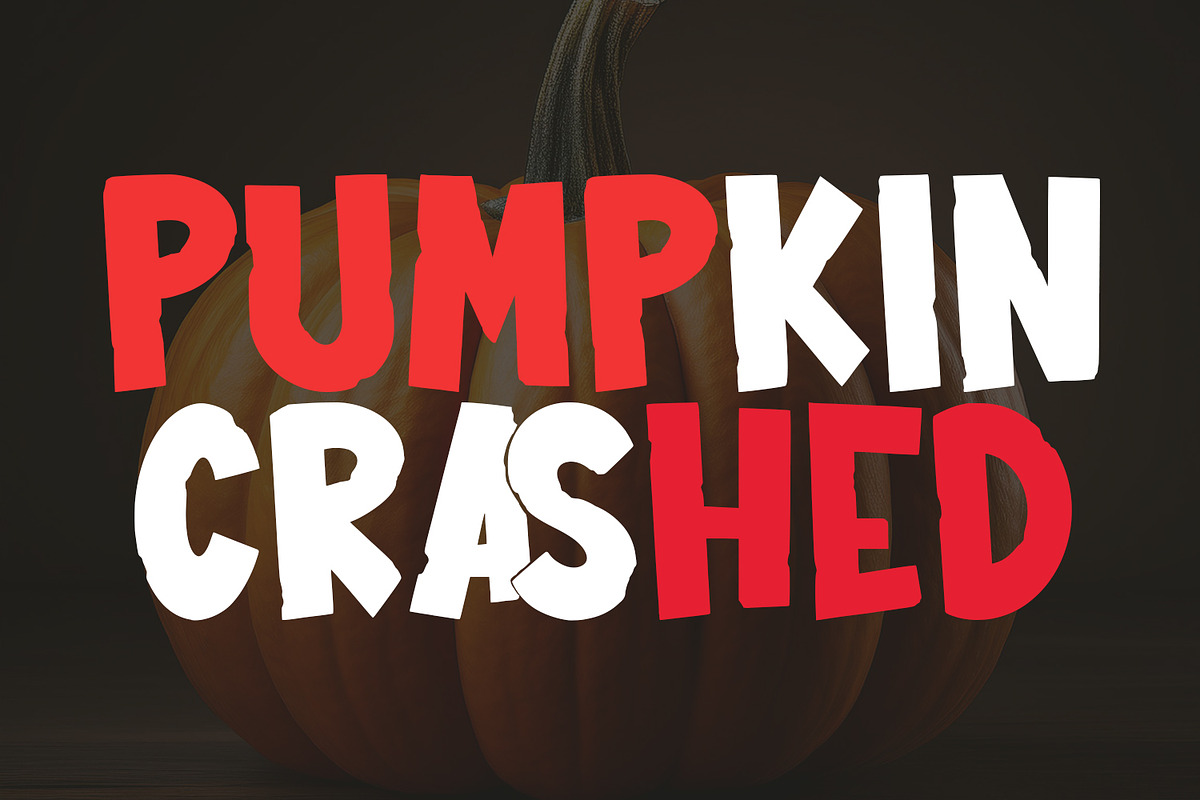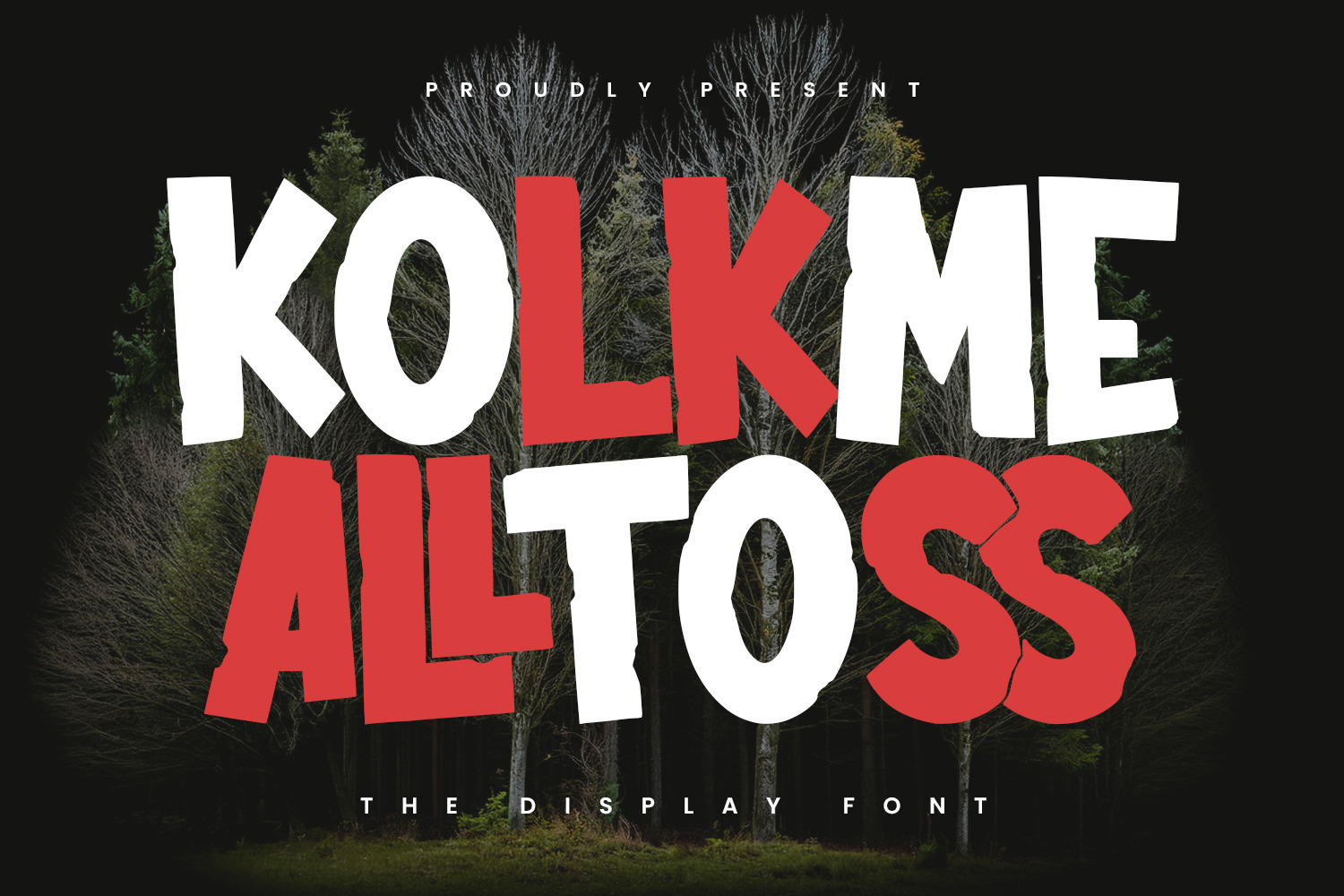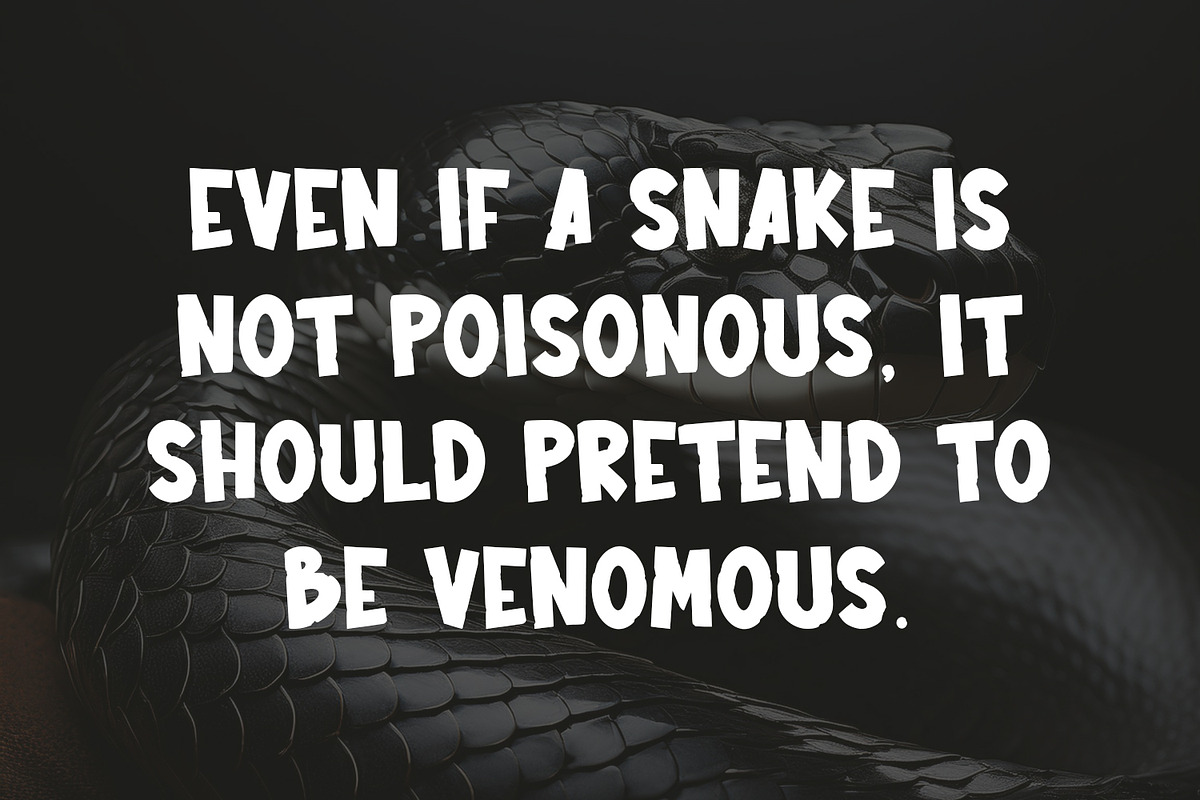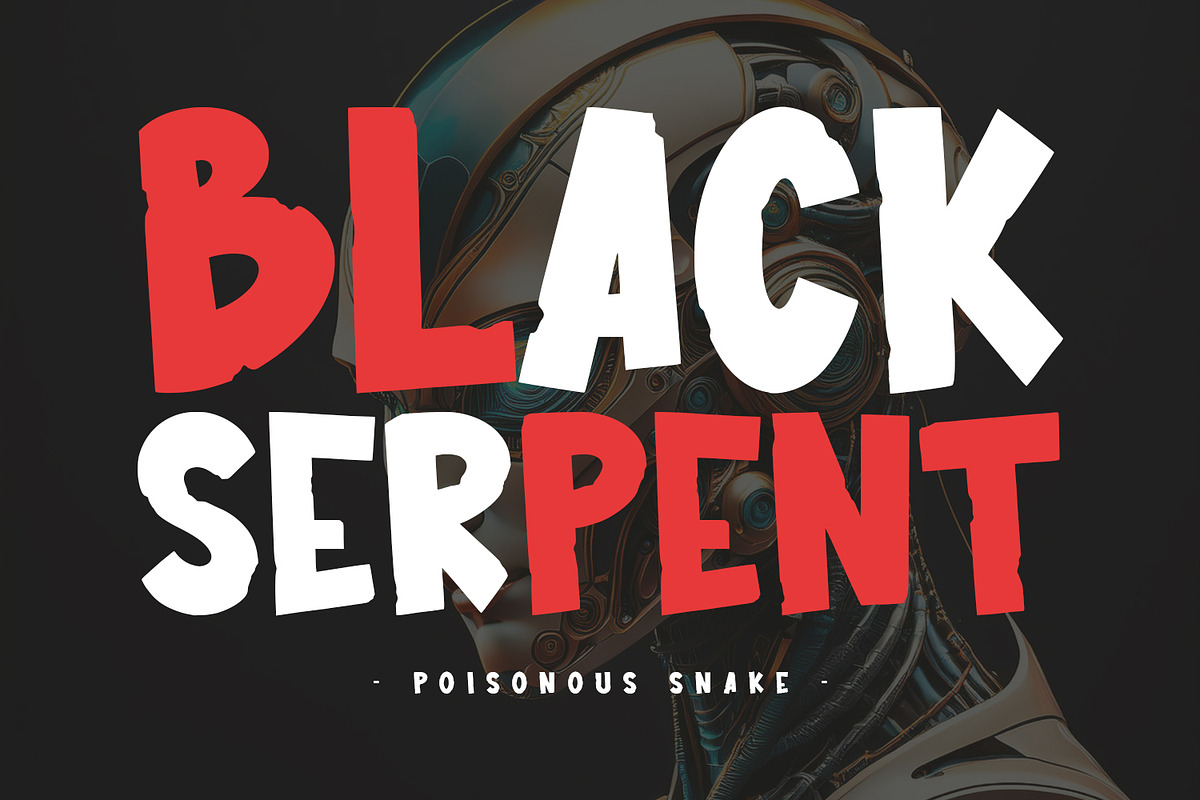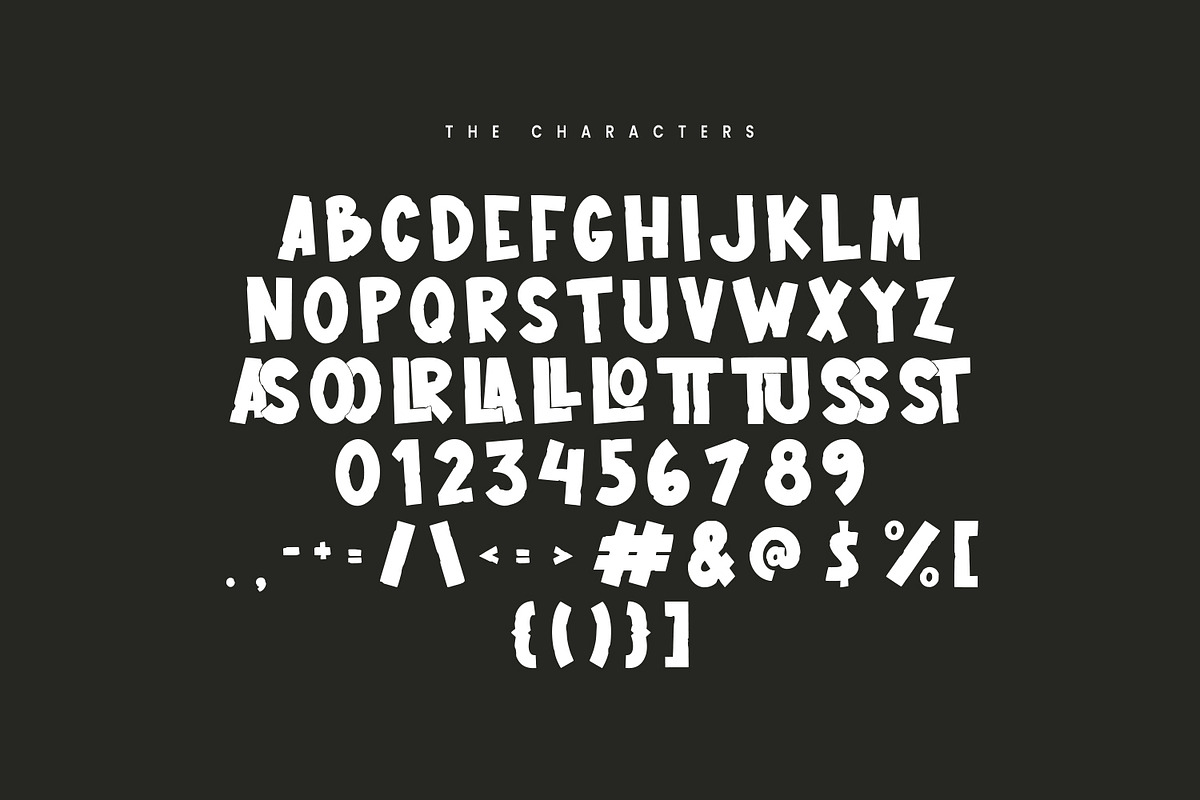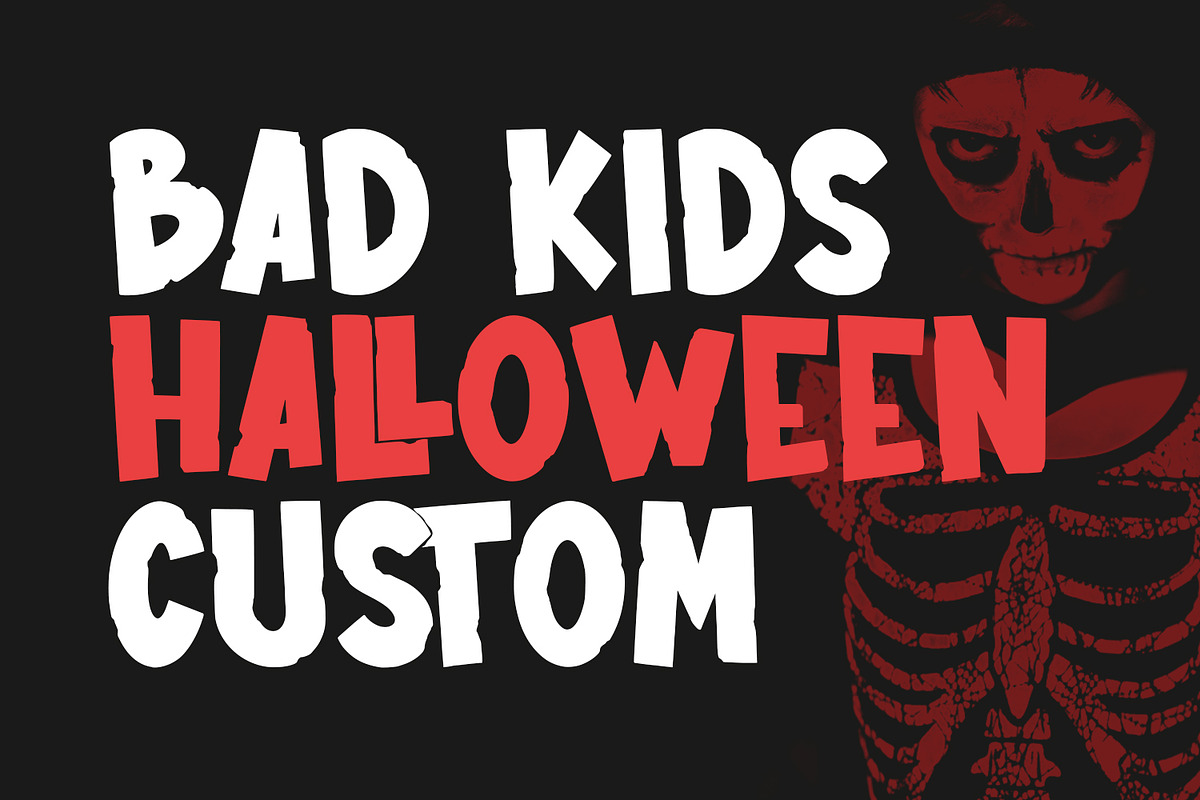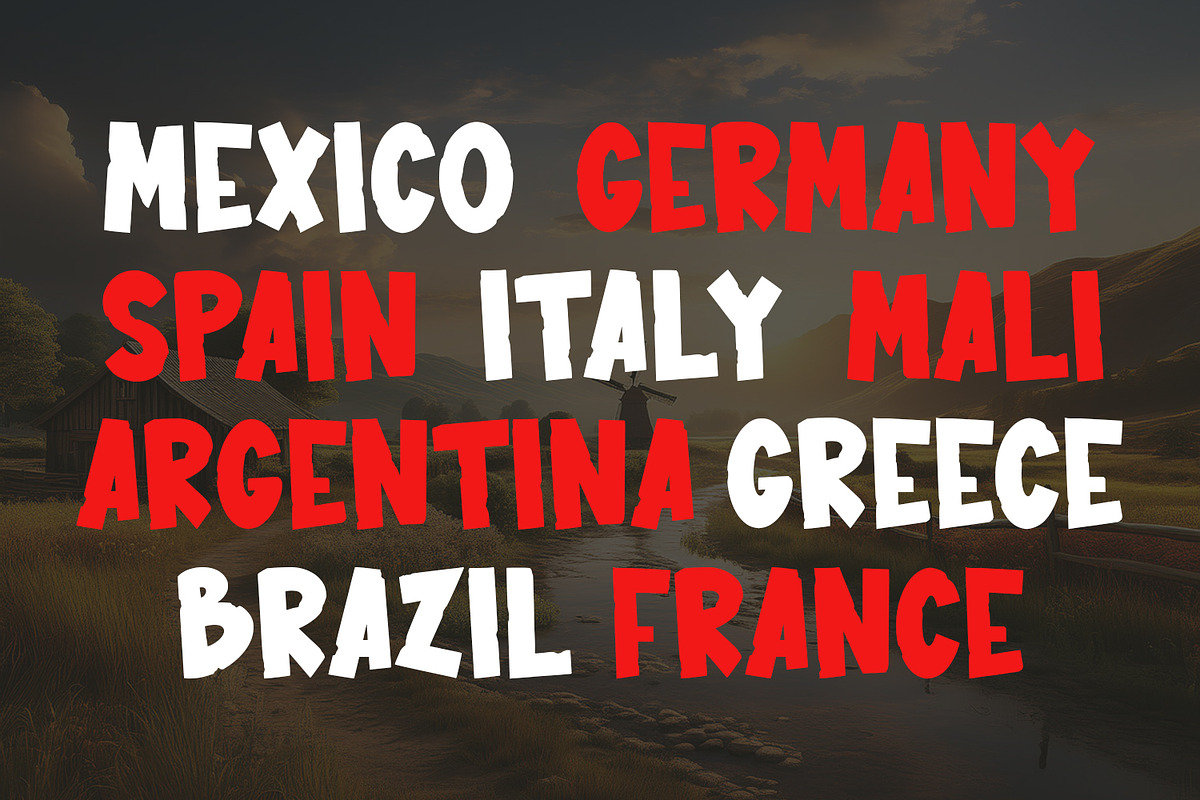
Kolkme Alltoss Sans Display Font
Kolkme Alltoss is a display modern font. With bold tall and hard stroke, fun character with a bit of ligatures. To give you an extra creative work. Kolkme Alltoss font support multilingual more than 100+ language. This font is good for logo design, Social media, Movie Titles, Books Titles, a short text even a long text letter and good for your secondary text font with sans or serif. Make a stunning work with Kolkme Alltoss font.